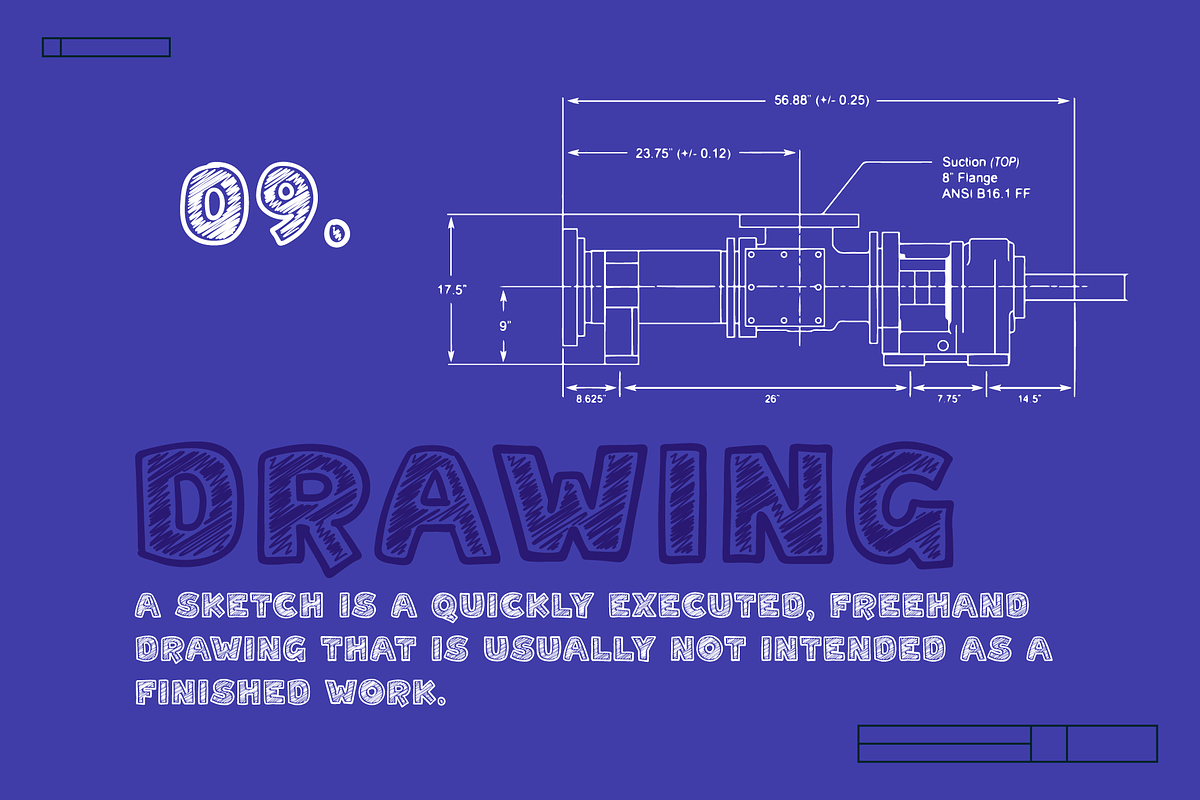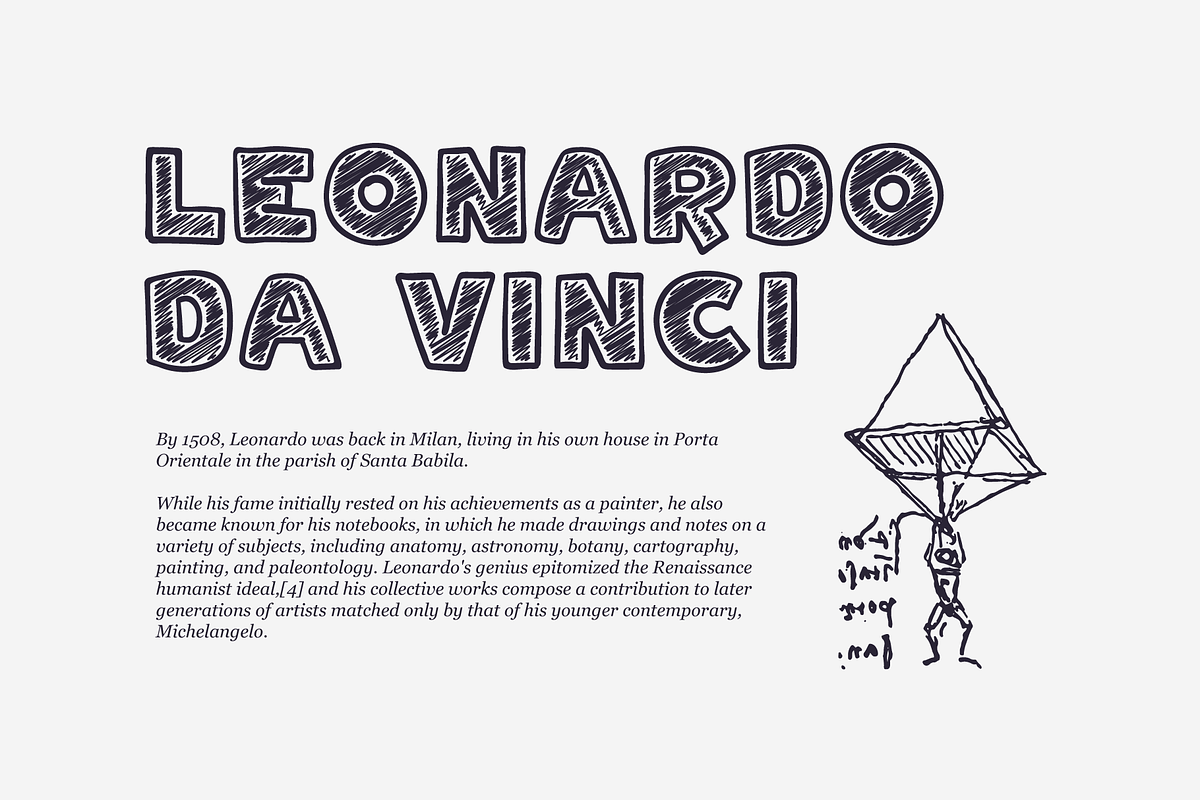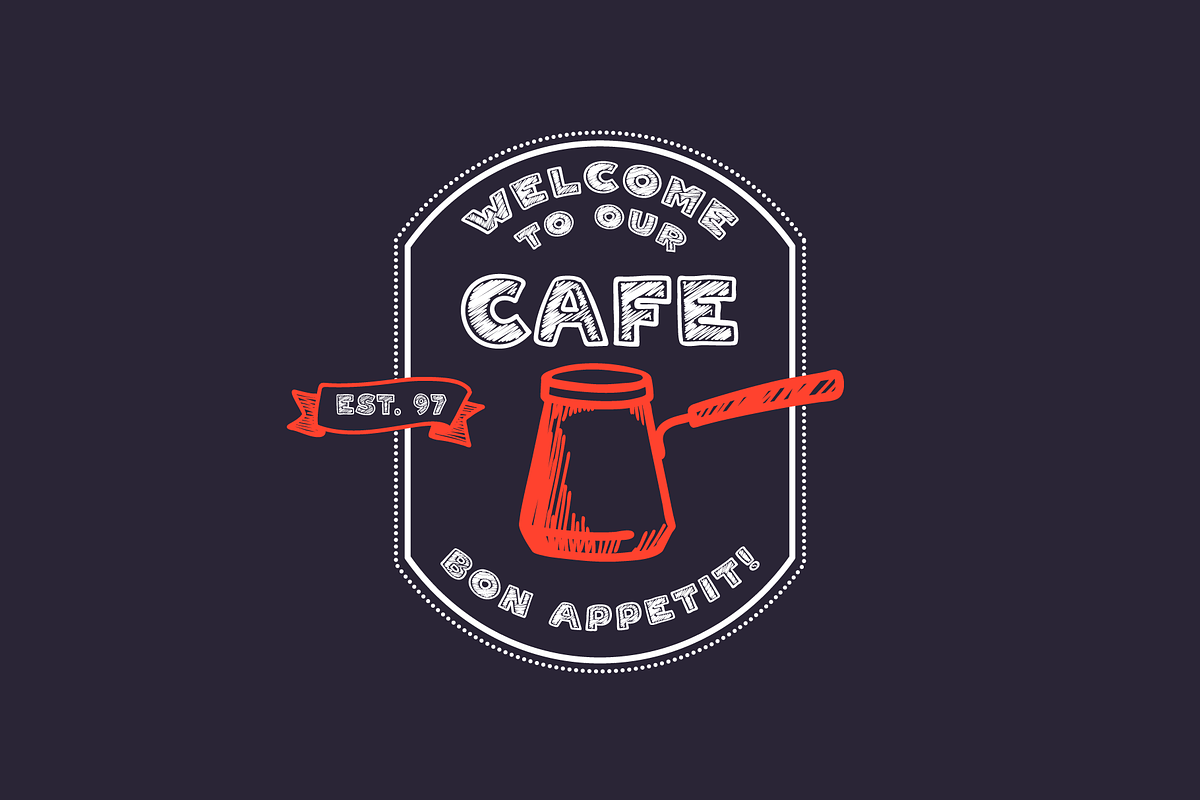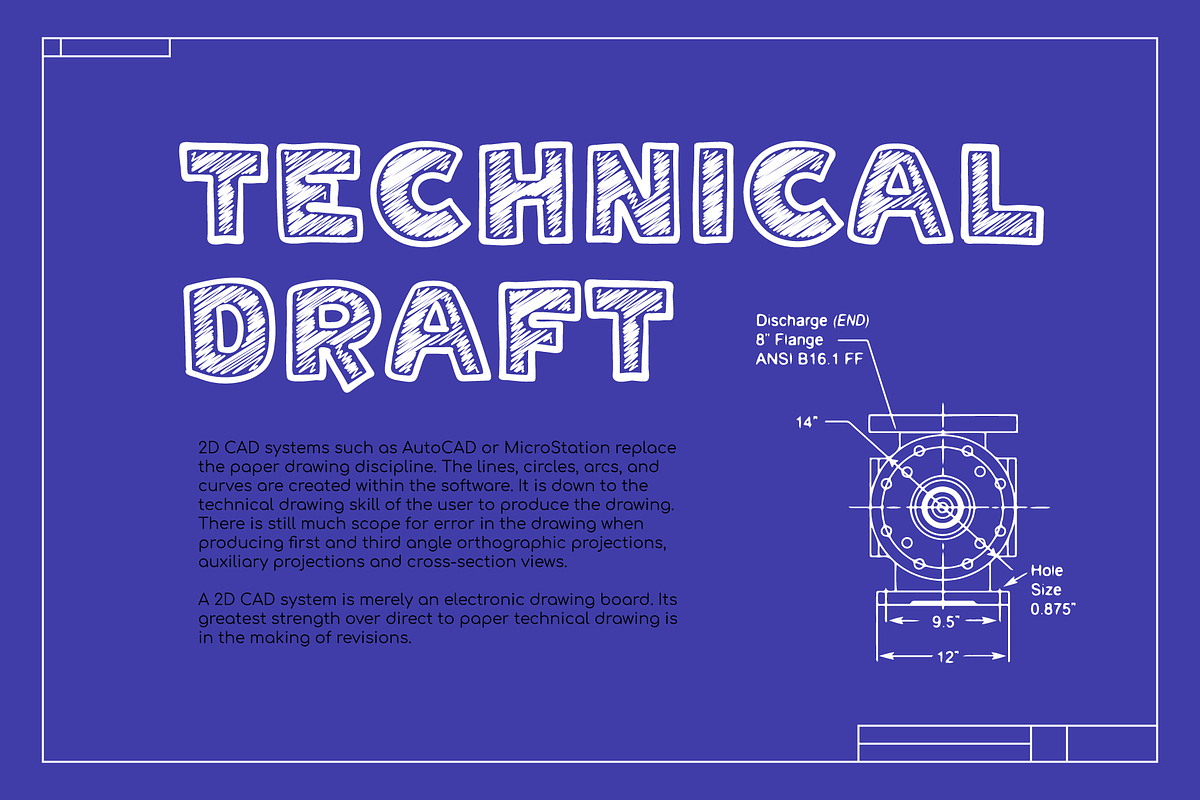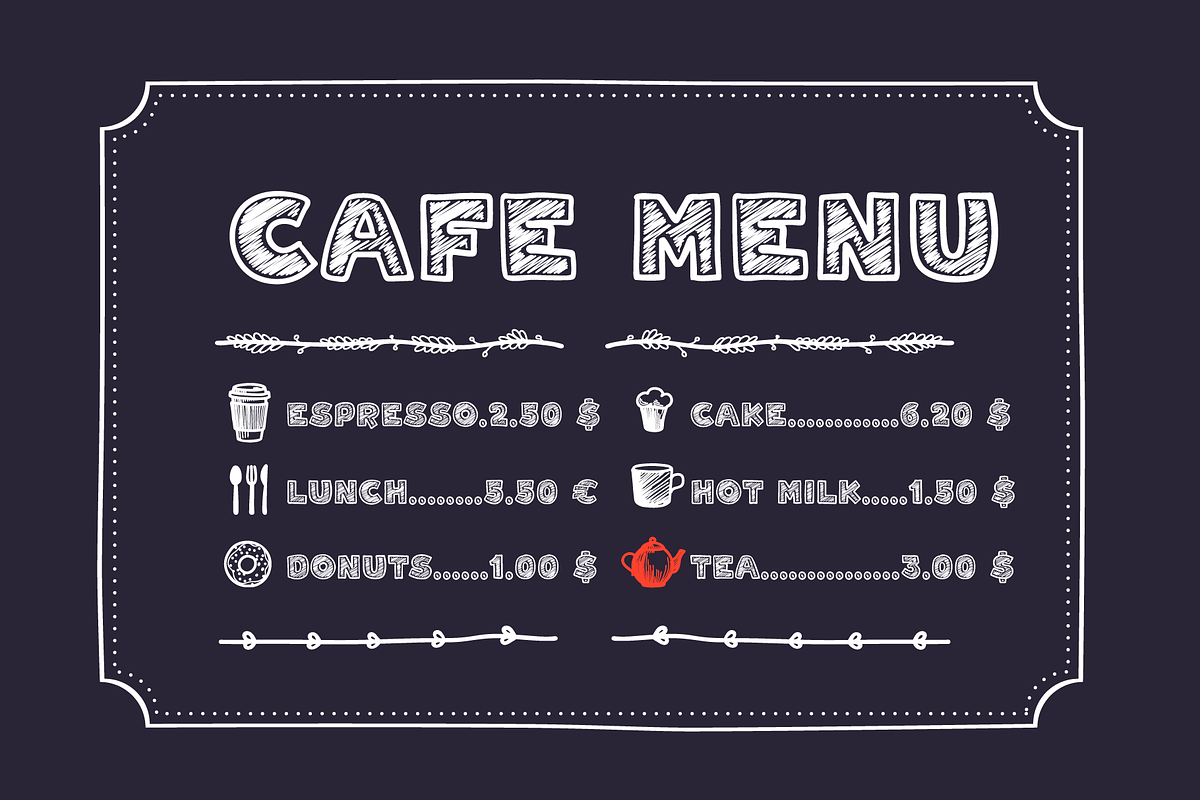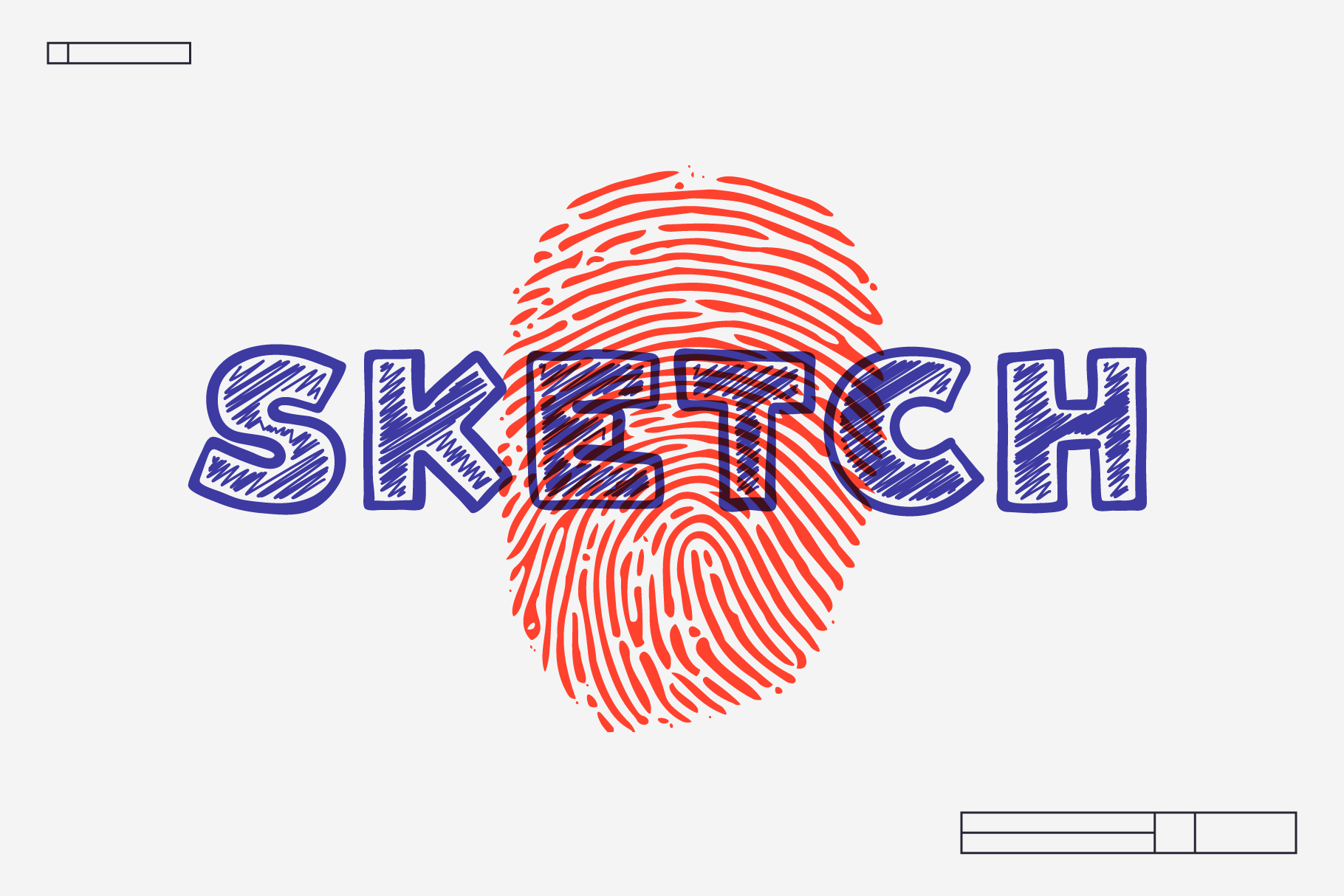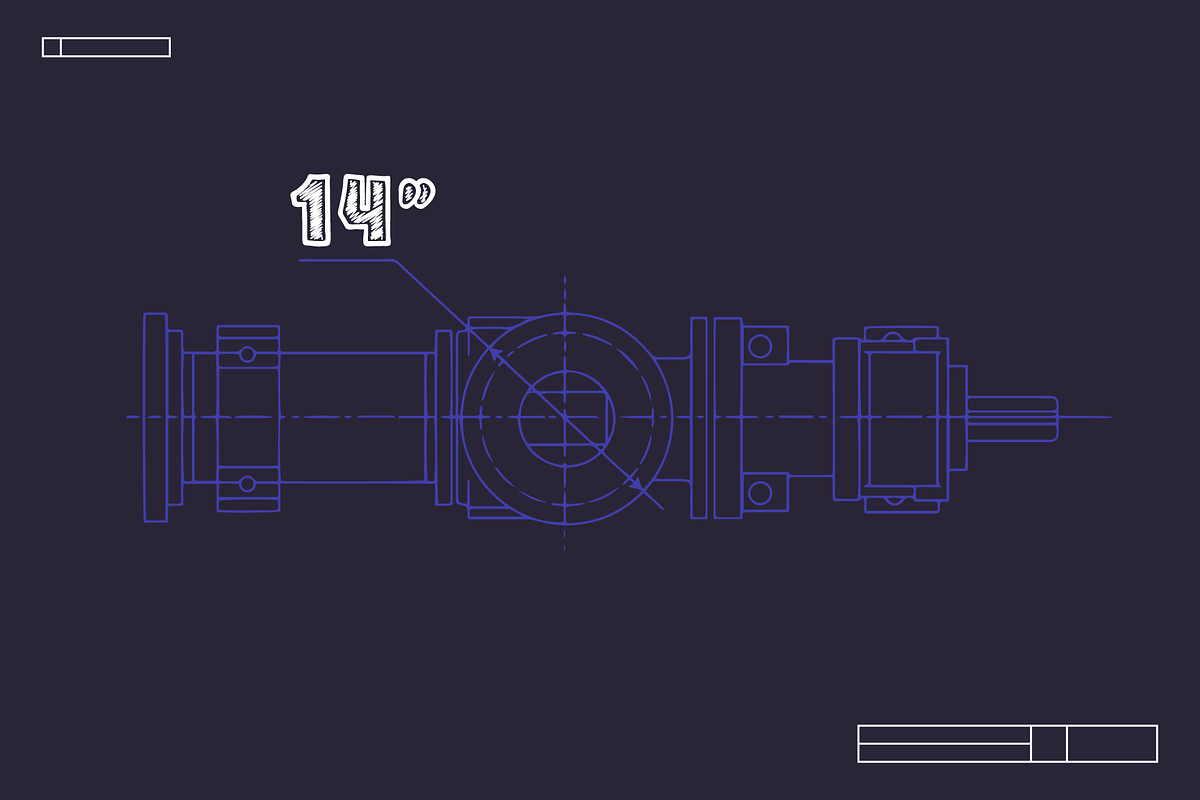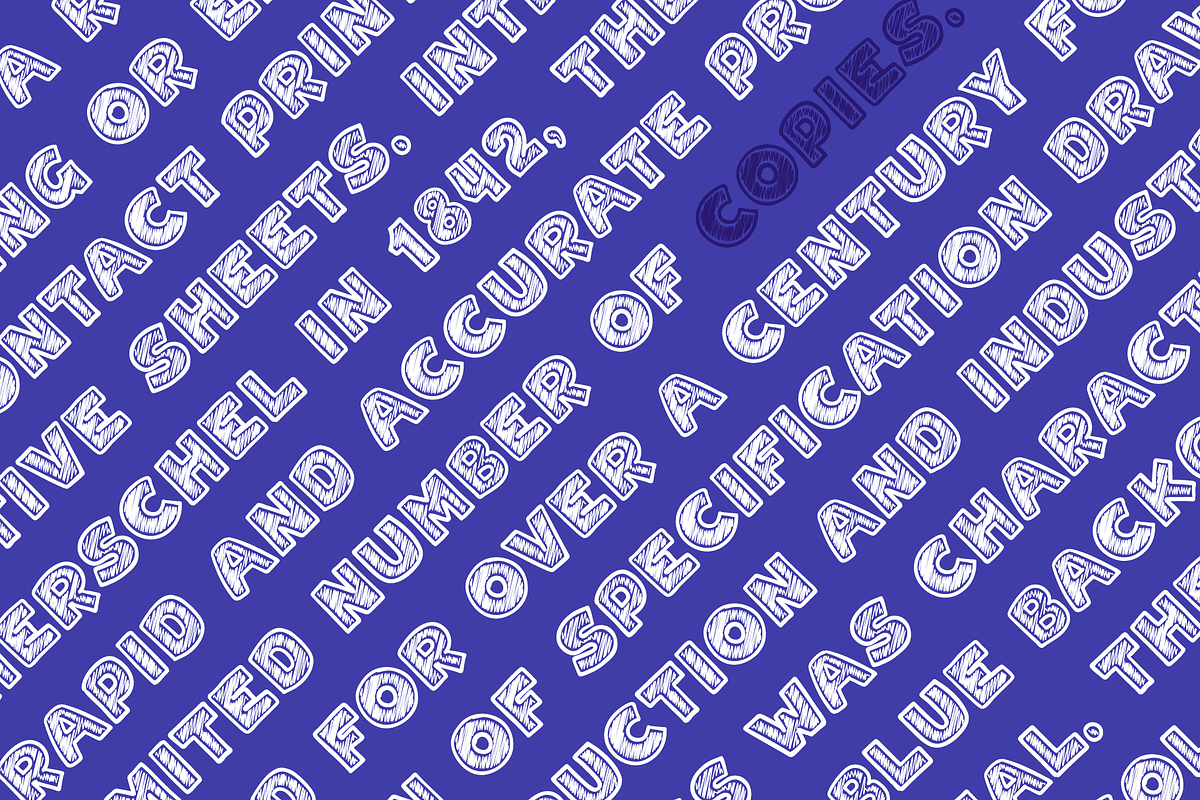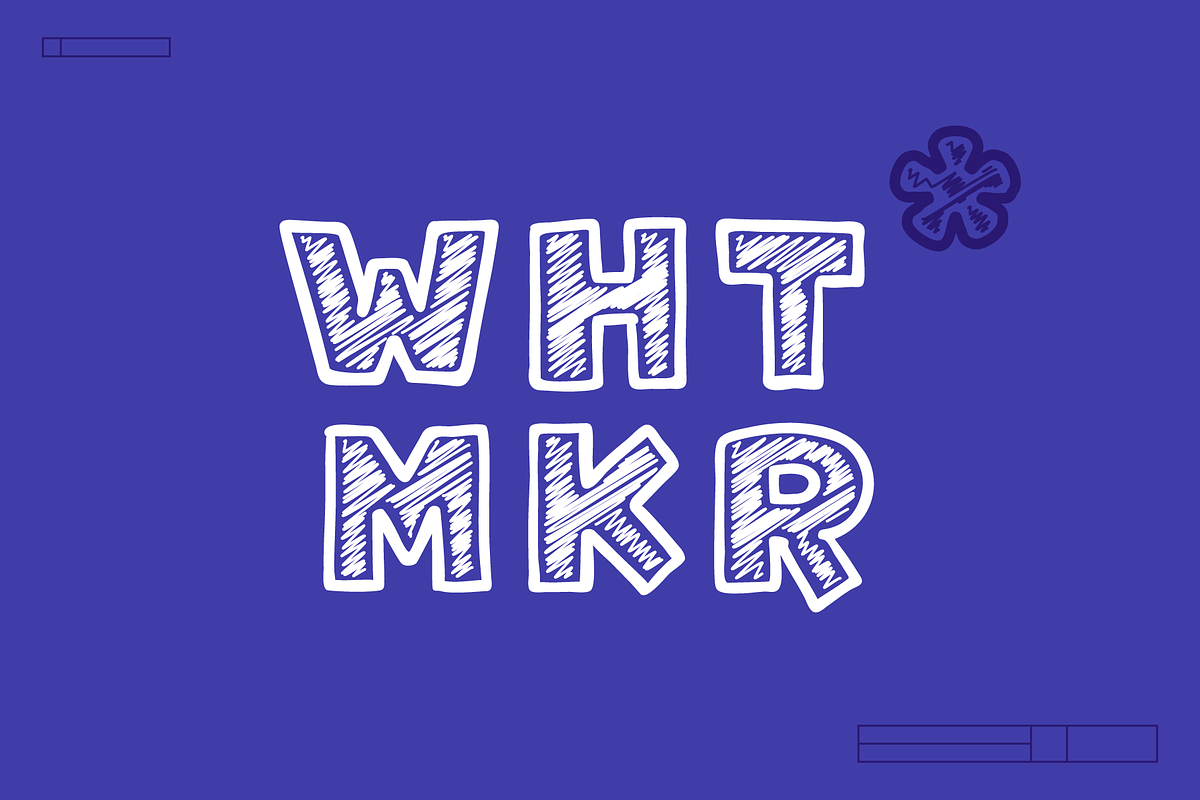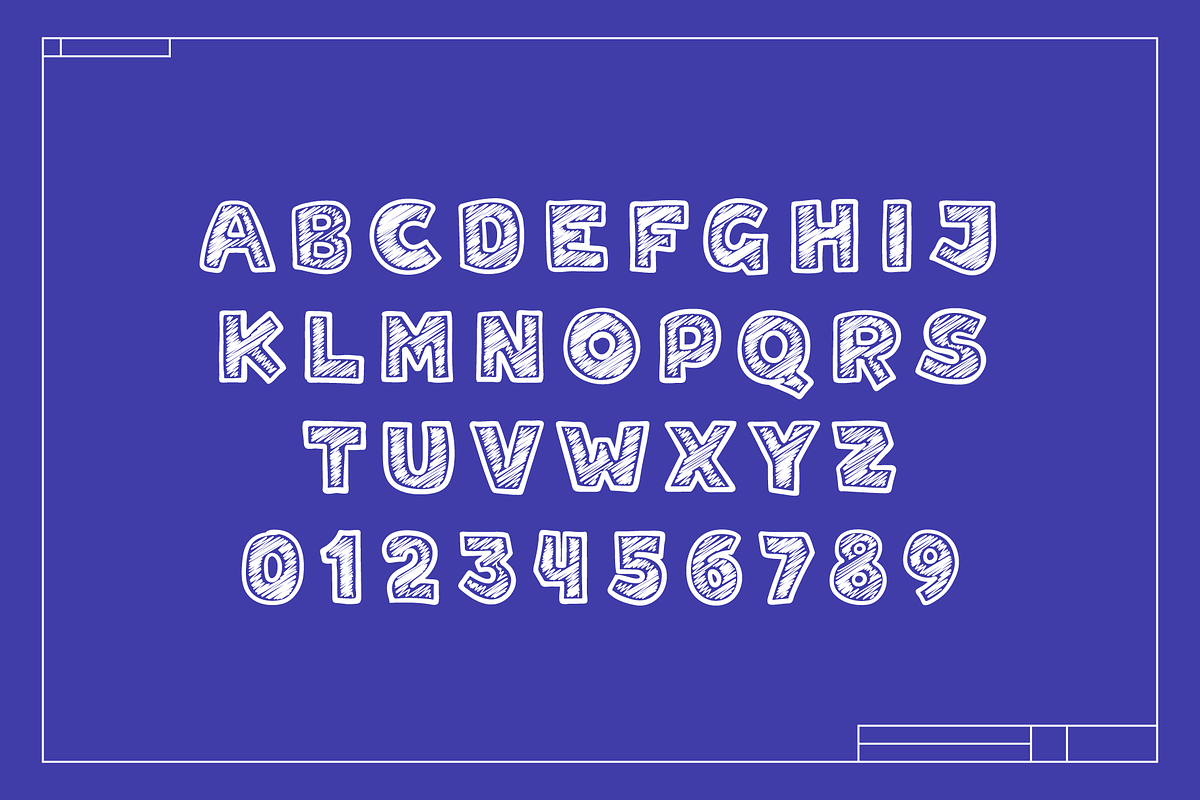
White Marker sketching font
Hey Guys! White Marker font is designed for imitating chalk lettering, blueprint titles, and sketching design.
This typeface can imitate hand-drawn lettering by chalk on a blackboard. It's perfect for a school signboard, advertising of a coffee shop, retro logos, handwritten posters, bar identity, etc.
Blueprint font was created for reproduction of a technical drawing or engineering drawing. The blueprint process was characterized by white lines on a blue background, a negative of the original.
You can use the third option, as I see it, an imitation pencil sketching lettering.